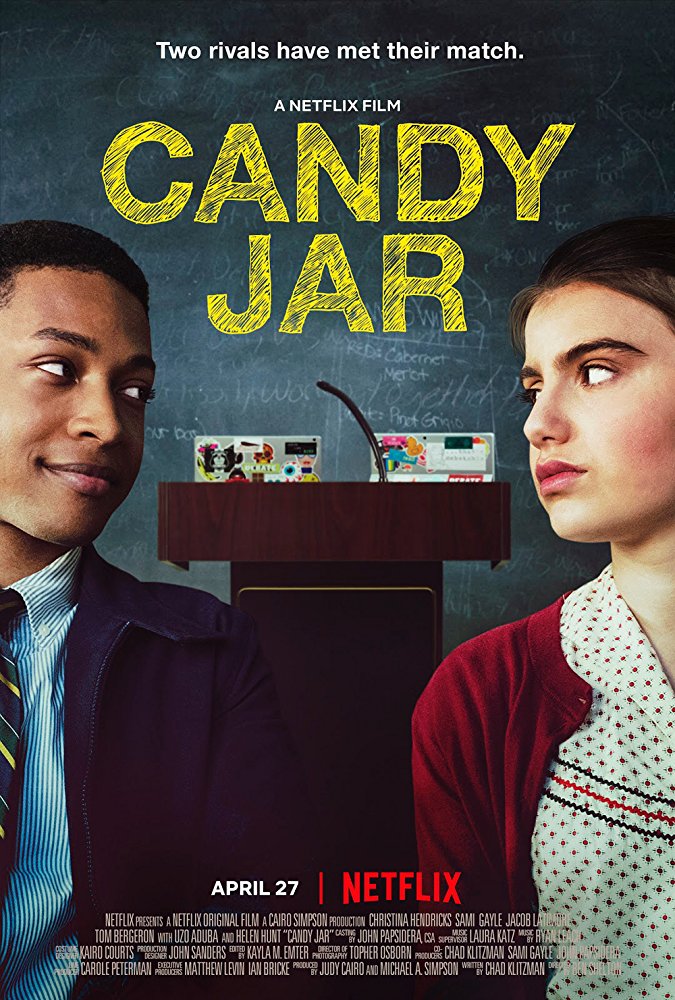
Candy Jar Font
ComedyCandy Jar is a 2018 American teen comedy-drama film directed by Ben Shelton. It follows two high school debate team rivals who must work together to win a national championship.
On the poster, the film title ''Candy Jar" uses a hand-drawn display font known as Sketchetik by Ossi Gustafsson.